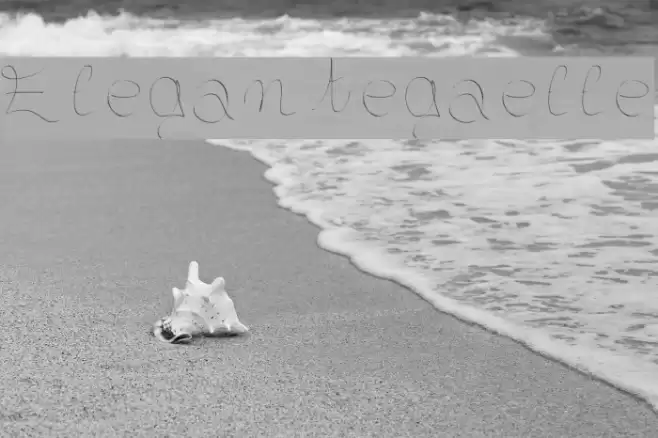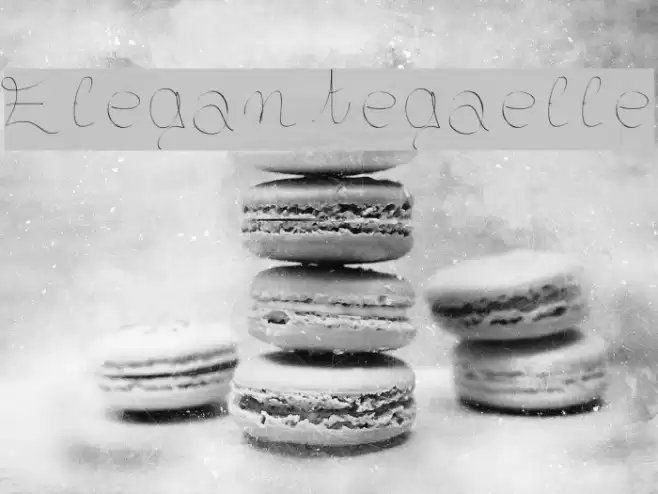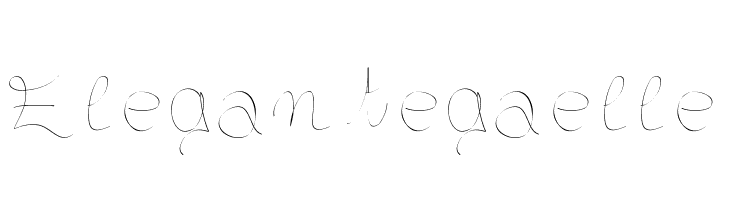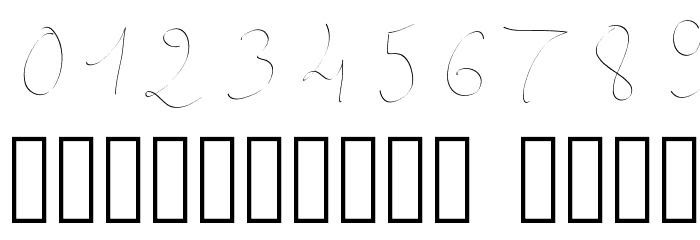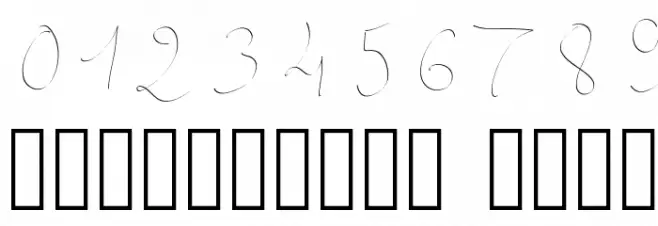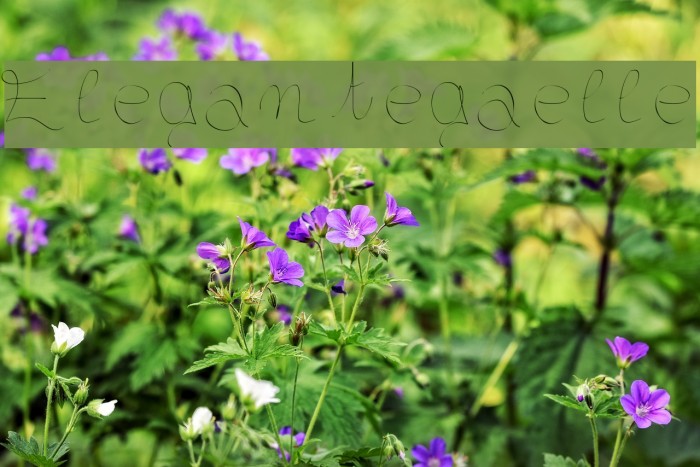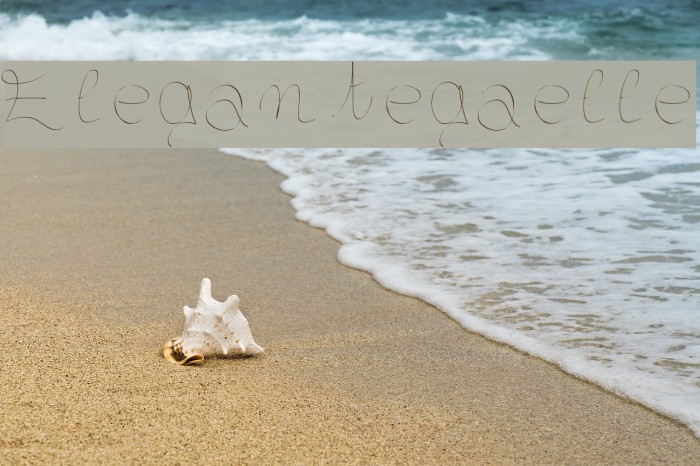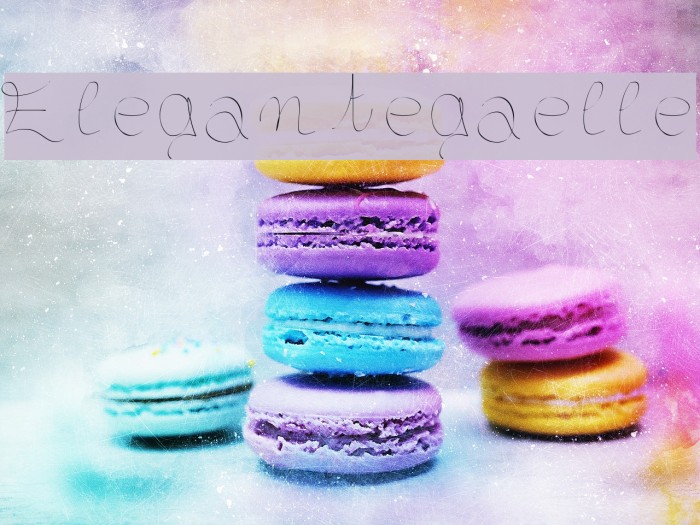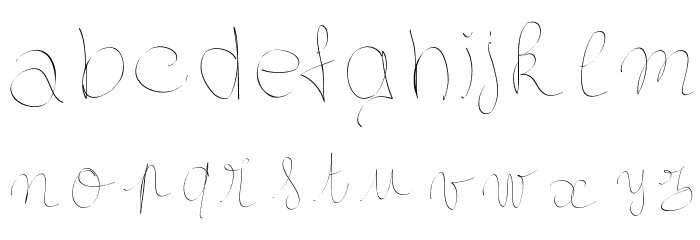
Elegantegaelle Font
Elegantegaelle Description
This font features an elegant and flowing script style, characterized by its delicate and thin strokes. The letters are interconnected with a graceful, cursive flair, giving it a sophisticated and artistic appearance. The uppercase letters exhibit a refined loop and curve design, while the lowercase letters maintain a consistent fluidity. The numerals are similarly styled, with a light and airy touch. This font lacks special characters, which are represented by empty boxes, indicating a focus on the alphabet and numerals. Its overall aesthetic is both modern and timeless, suitable for adding a touch of elegance to any design.
An elegant, flowing script font with delicate, thin strokes and interconnected letters from Uncategorized fonts.
- Proposed Projects: Ideal for wedding invitations, elegant branding, personal stationery, and artistic projects.
- Overall Style: Elegant
- Use Case: Logos, Invitations, Artistic projects